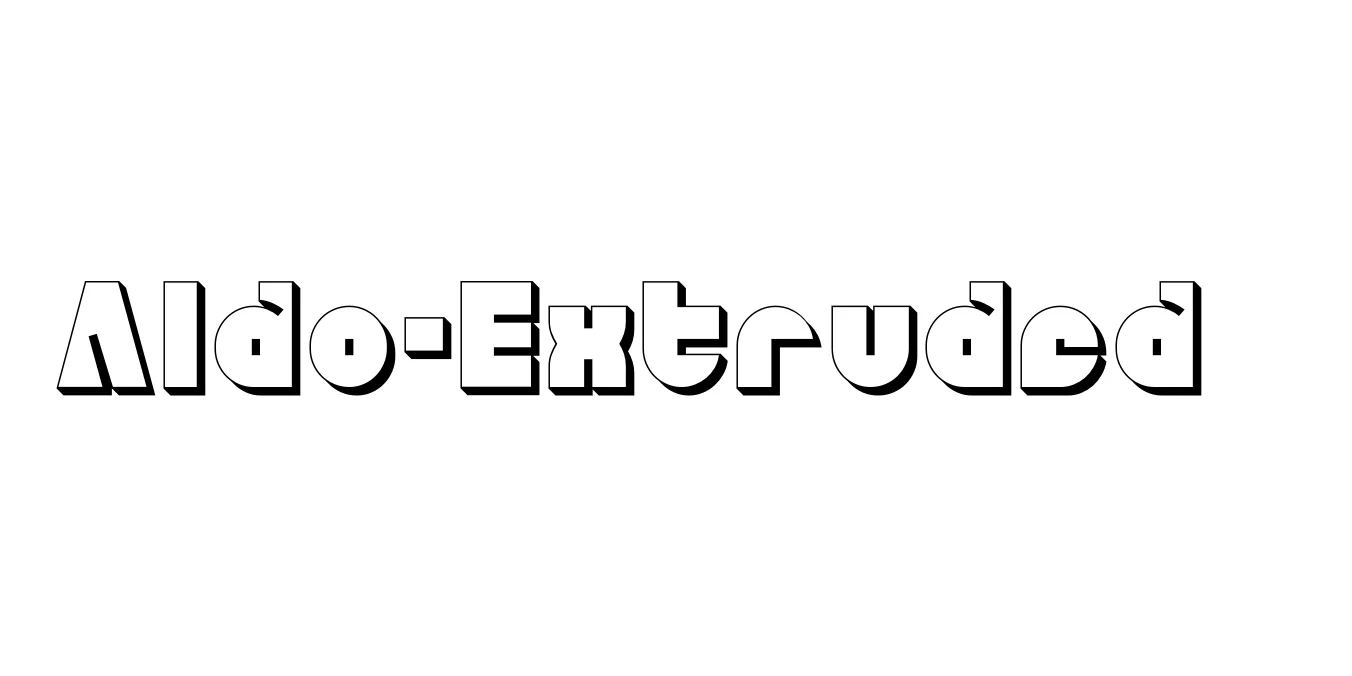
Aldo-Extruded ☞
Designed by Sacha Rein
| Category | Display / Sans Serif |
| Designer | Sacha Rein |
Aldo-Extruded is a stylized variation of the popular Aldo typeface, a clean and geometric sans-serif created by designer Sacha Rein. The font is characterized by its minimalist structure and urban aesthetic, drawing inspiration from contemporary architectural shapes and high-end fashion branding. The 'Extruded' version specifically introduces a three-dimensional effect, adding depth and a shadow-like quality that makes the characters stand out dramatically on any background.
This typeface is part of a larger family designed to provide versatility across digital and print media. While the standard weights of Aldo are known for their clarity and modern feel, the Extruded variant is built for impact. It is particularly well-suited for display purposes where a bold, tactile look is necessary to capture the viewer's attention, making it a favorite among graphic designers working on posters, streetwear branding, and large-scale environmental graphics.
Aldo-Extruded ☞ Best Uses
Perfect for high-impact titles and large-scale display signage.
Ideal for event flyers and promotional materials seeking a 3D architectural look.
Excellent for bold logos that require a sense of depth and physical presence.
Great for creating eye-catching quote graphics and digital headers.
Frequently used in streetwear and t-shirt designs for a modern, industrial vibe.